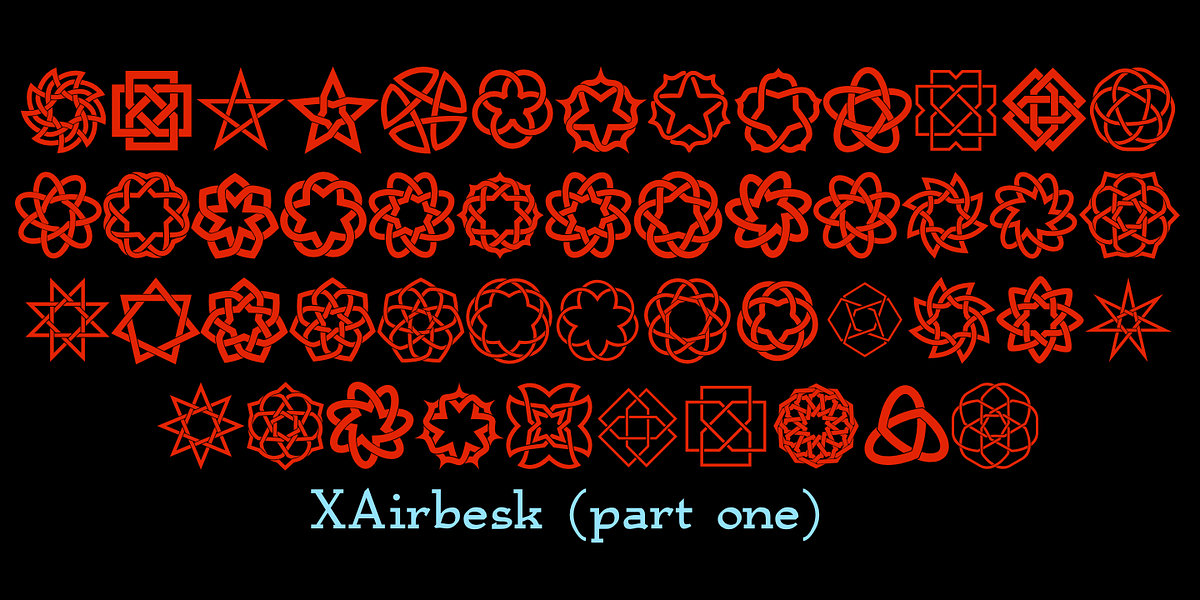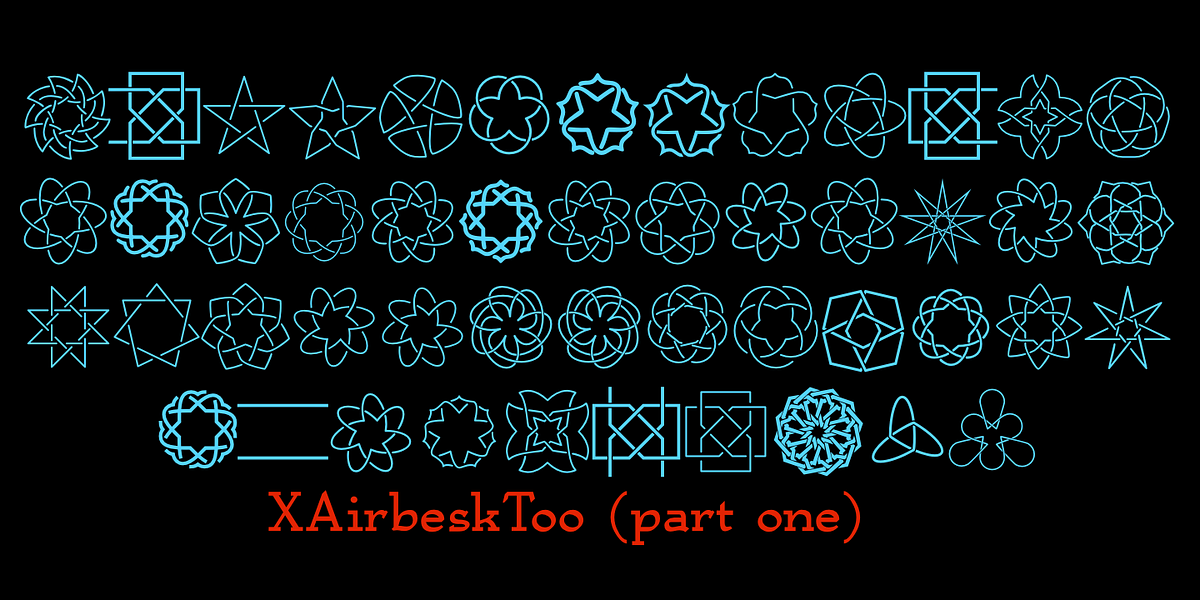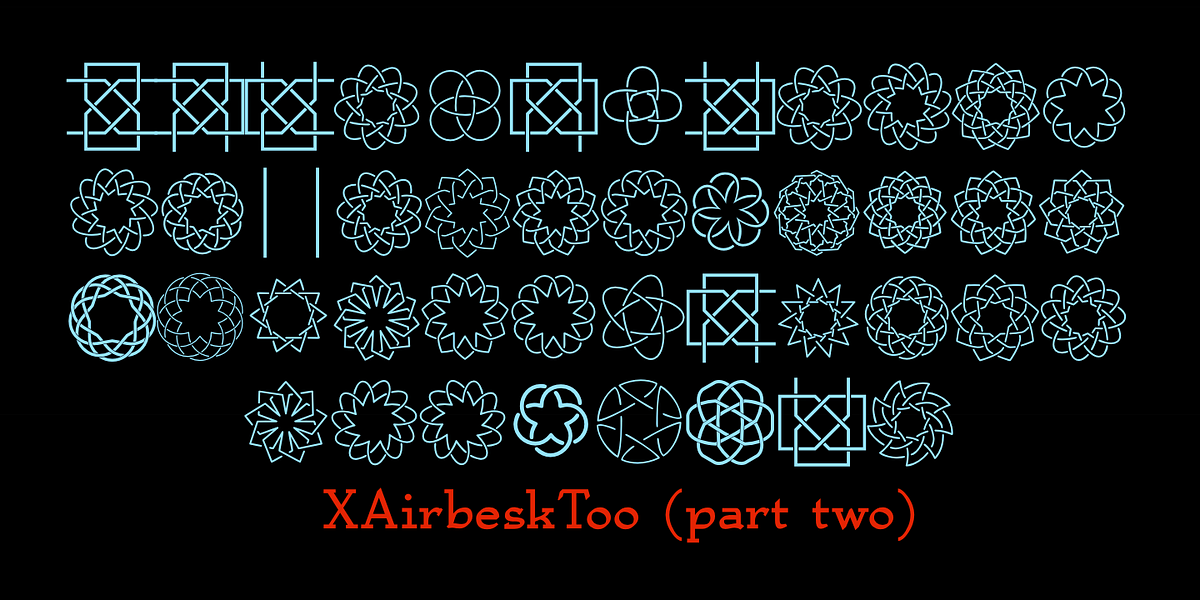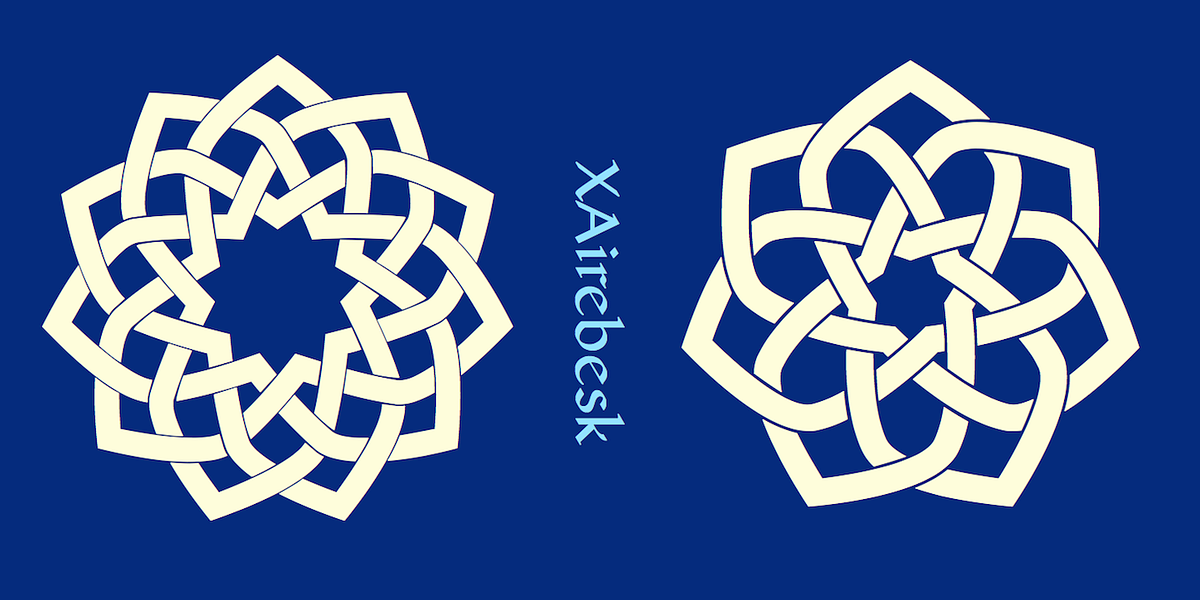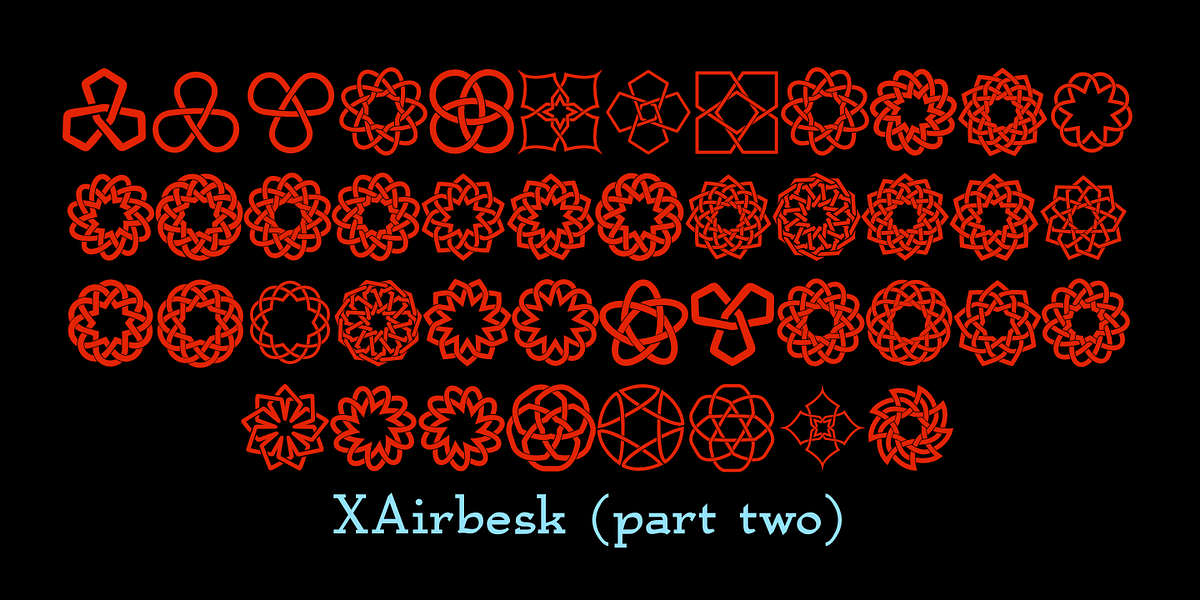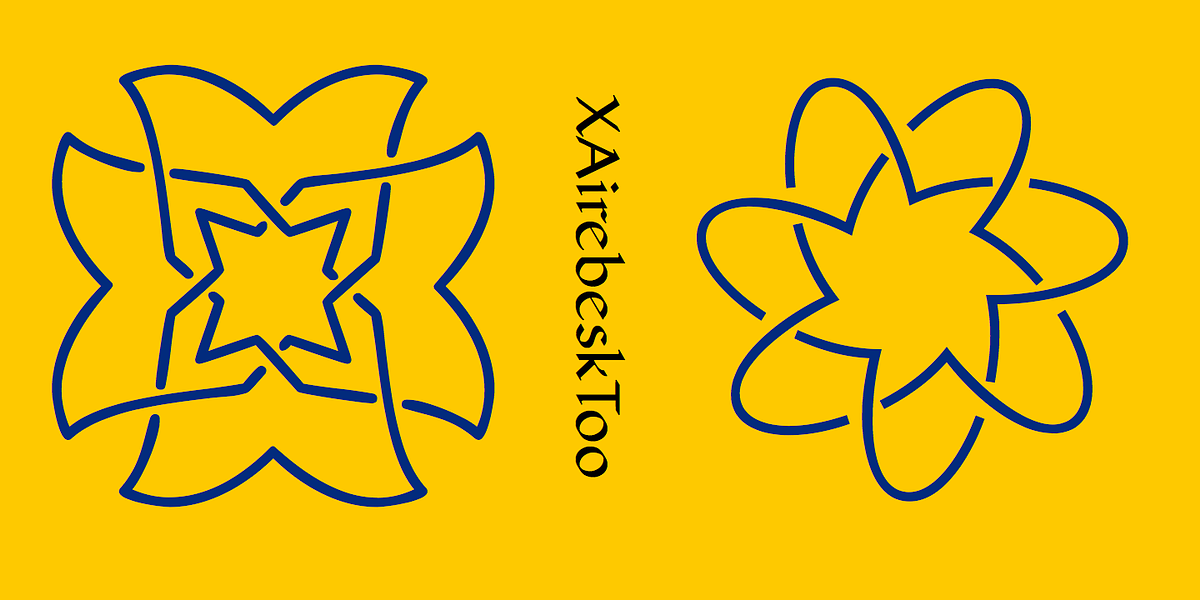
XAirebesk
This font features dingbat ornaments inspired by a blend of cultural influences. The designs evoke the arabesque patterns common in medieval Islamic art, while also referencing Celtic knots and certain motifs found in Chinese and Korean ornamentation. The font includes two styles: a bolder version intended for large sizes and a thinner one suitable for smaller applications. Although similar ornaments often appear on corresponding characters across both styles, there are exceptions.